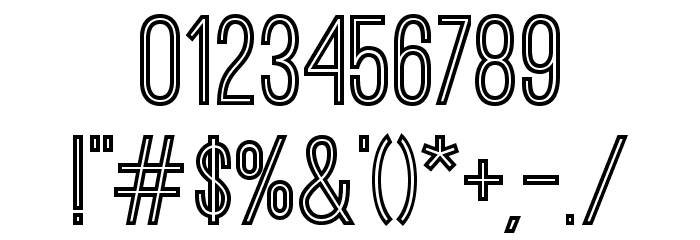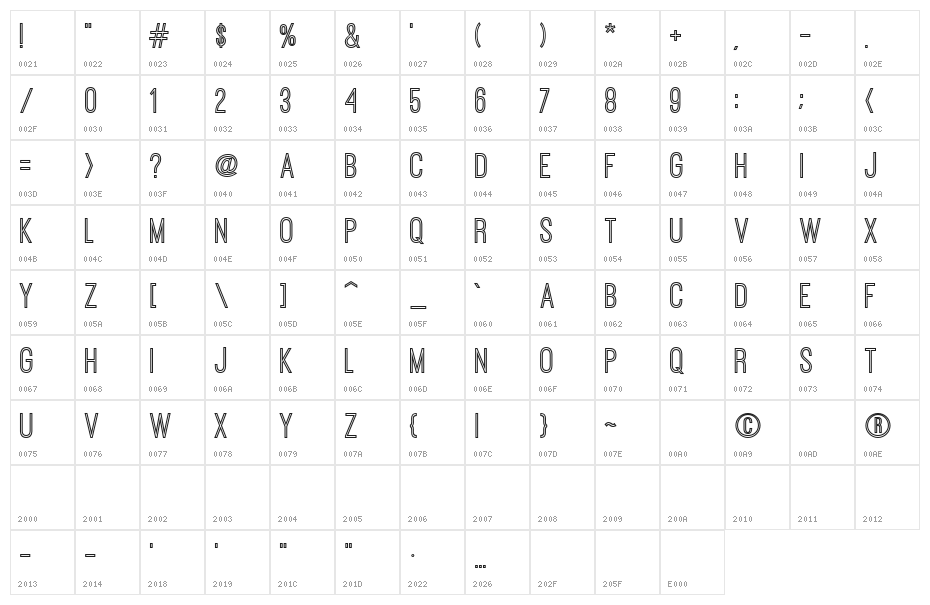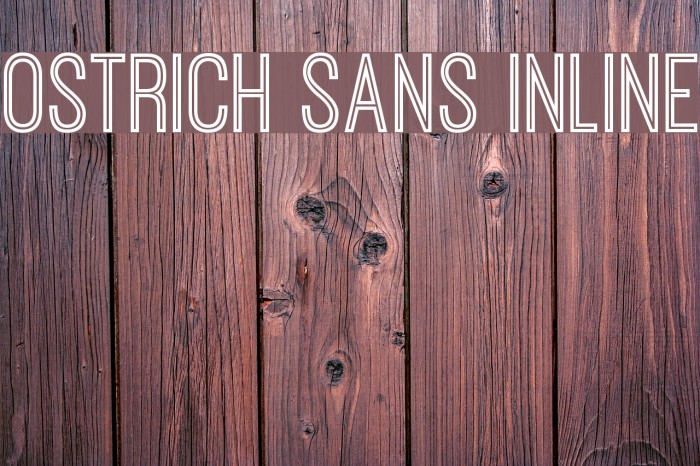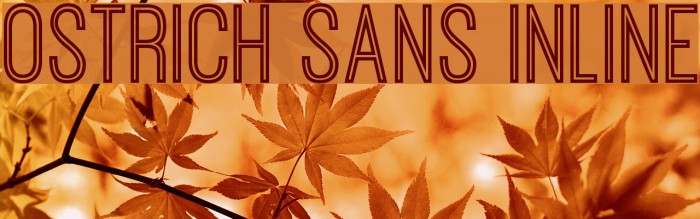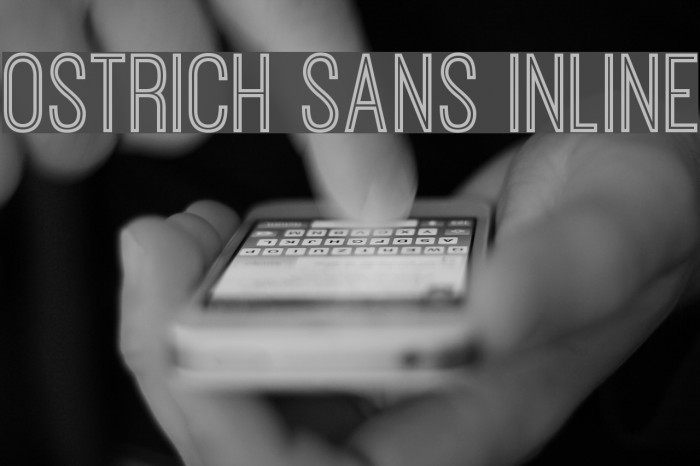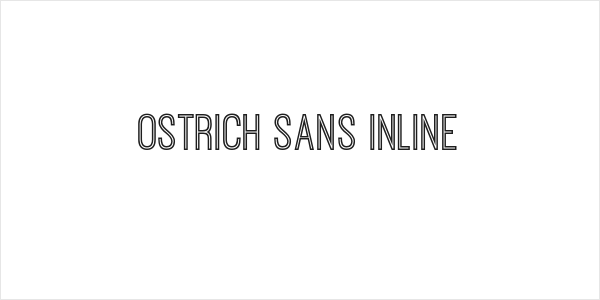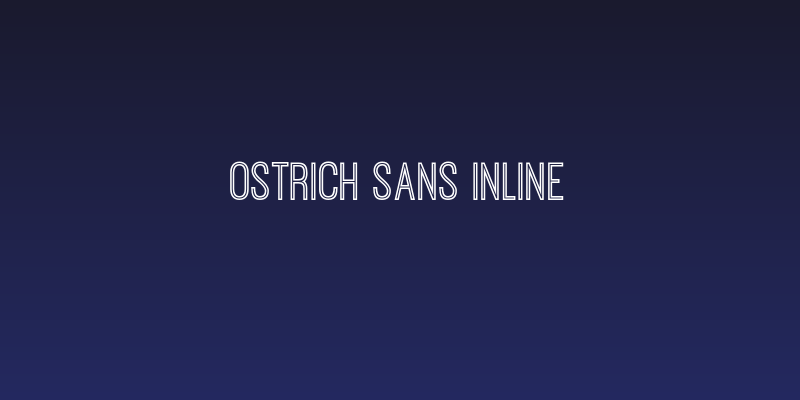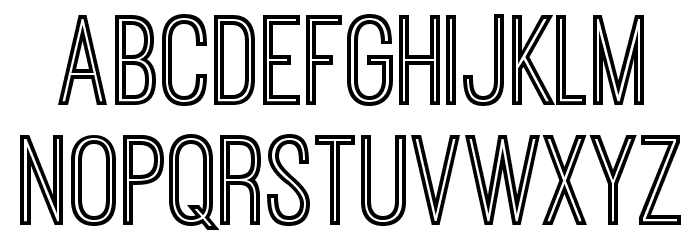
Ostrich Sans Inline Font
Ostrich Sans Inline Description
This font features a modern, clean design with an inline style that gives it a unique, open look. The uppercase letters are bold and structured, while the lowercase letters maintain a consistent style, offering a harmonious balance. The numbers and special characters are designed to match the overall aesthetic, making it versatile for various uses. The inline detail adds a touch of sophistication, making it suitable for contemporary designs. Its geometric shapes and uniform line thickness contribute to a sleek and professional appearance.